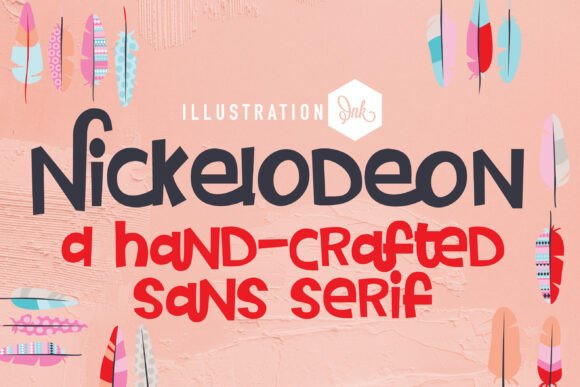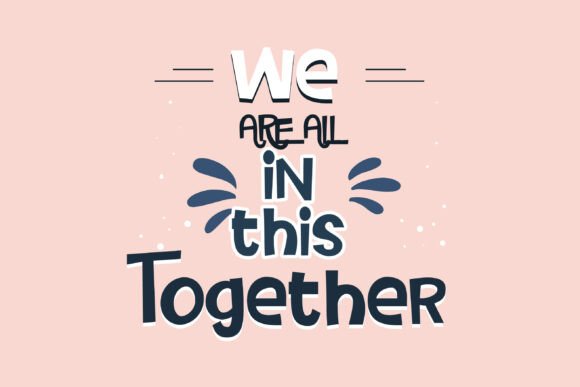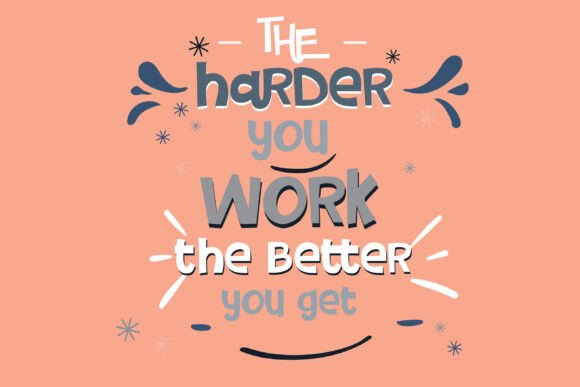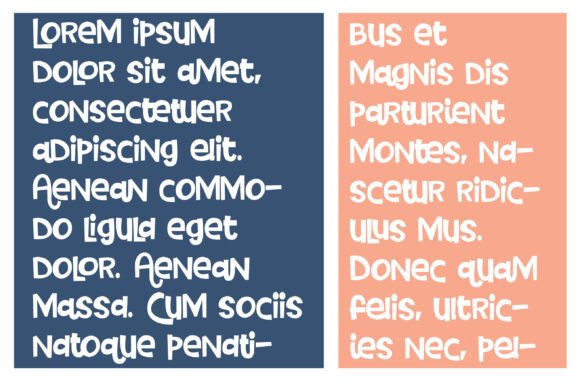
Nickelodeon Font
About the Nickelodeon Font
Crafted with precision, the Nickelodeon Font is ready to bring your ideas to life. This hand-crafted font is a whimsical sans serif with chunky, thick, lettering with a number of creative ligatures.
Ideal for headlines, short text blocks, and playful branding projects targeting a younger audience, Nickelodeon Font’s whimsical nature makes it unsuitable for body copy or UI elements requiring high readability. Its chunky forms work well on posters, packaging, and social media graphics where visual impact is paramount.
The font’s core personality is bold and friendly. Pairing it with a clean sans-serif like Open Sans for body text or a more geometric sans-serif for a modern feel would create a balanced design. For a more playful approach, consider pairing it with a script font that complements its hand-crafted feel.
Avoid using Nickelodeon Font in situations requiring extensive text or high levels of legibility, such as lengthy articles or websites. The light version offers a slightly softer alternative, but maintains the font’s inherent playfulness.
Nickelodeon Font Usage Examples
Nickelodeon Font Example